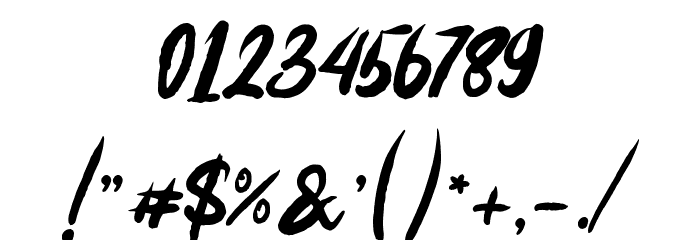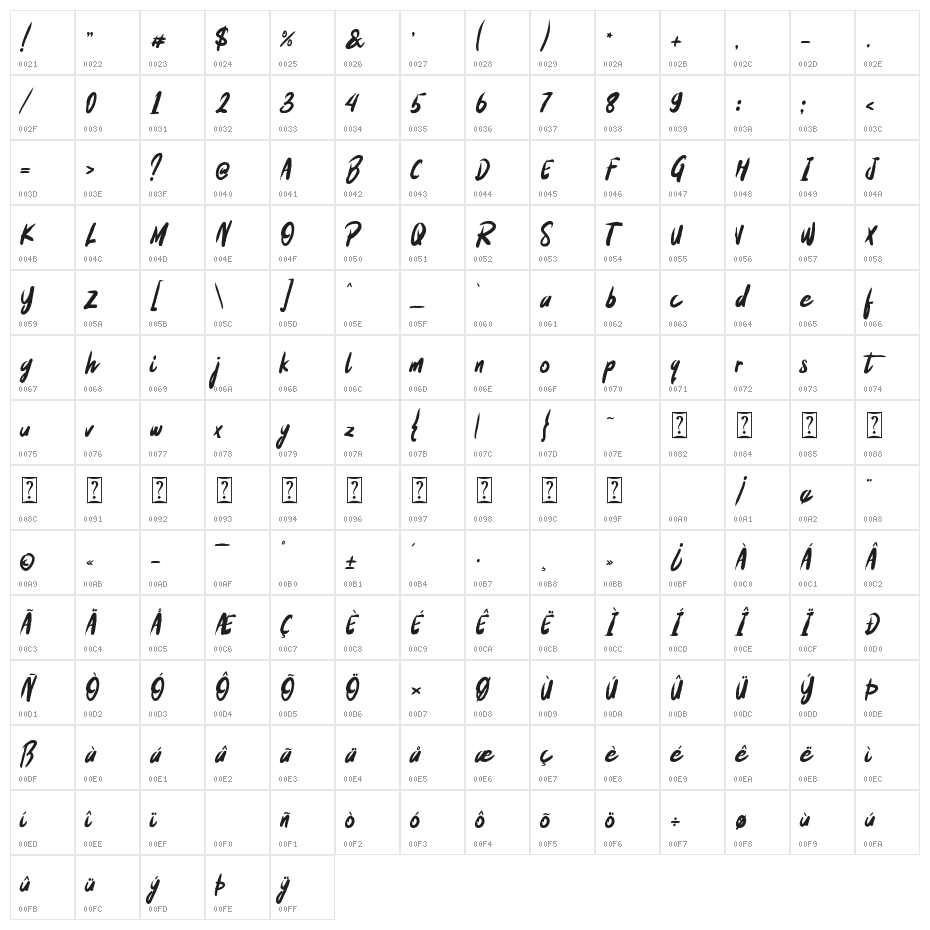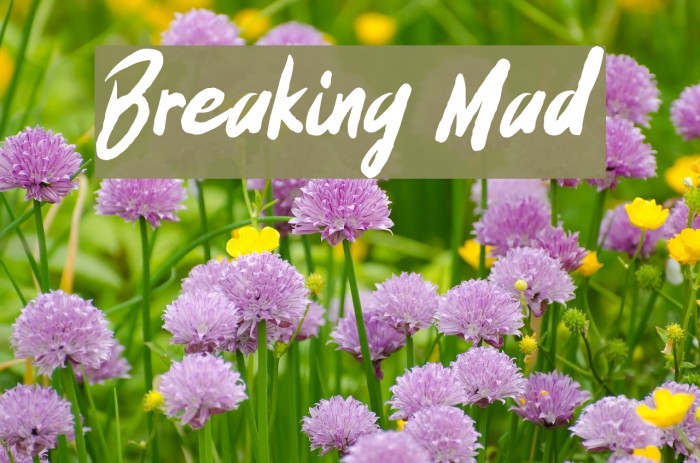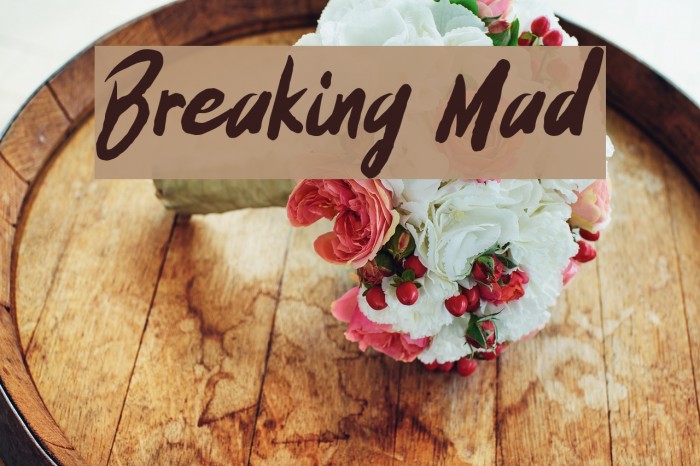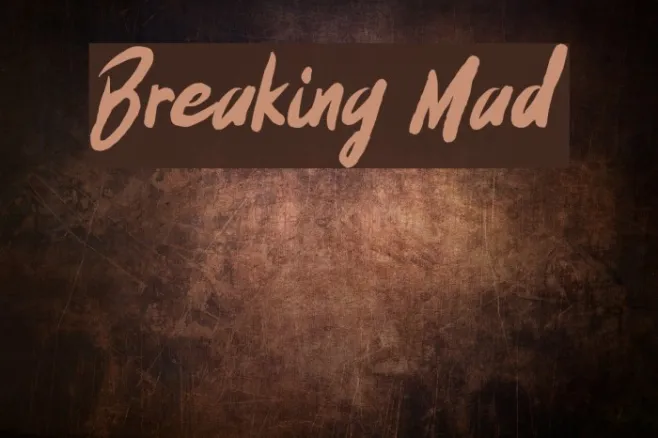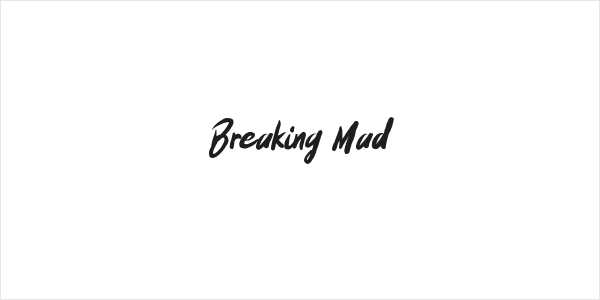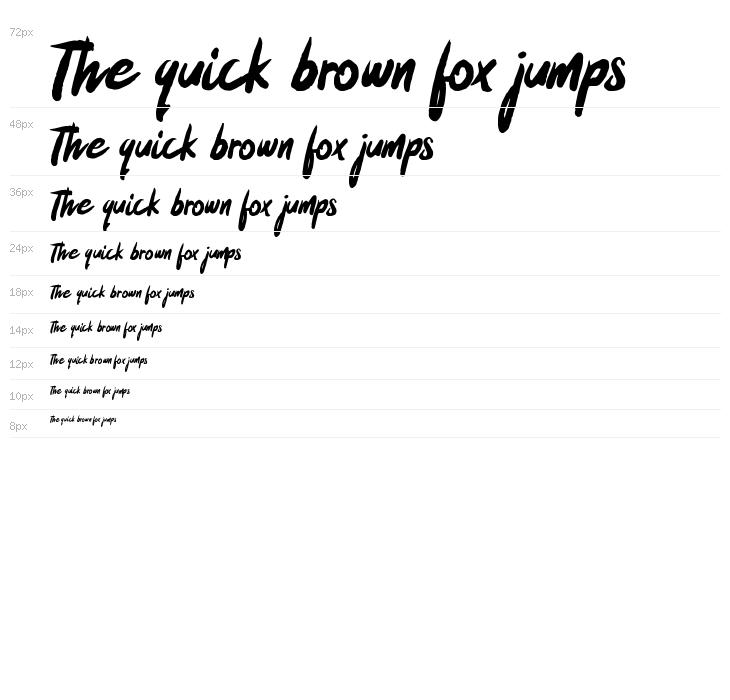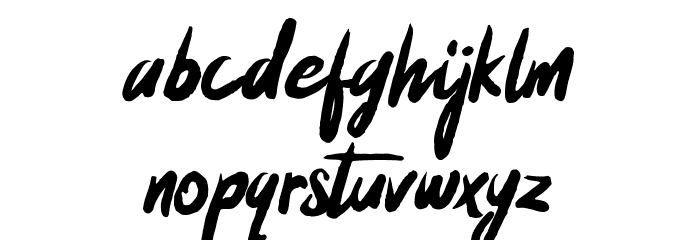
Breaking Mad Font
Breaking Mad Description
This font exudes a bold and energetic handwritten style, characterized by its dynamic brush strokes and organic flow. The uppercase letters are robust and slightly slanted, giving a sense of movement and spontaneity. The lowercase letters maintain a consistent style, with smooth curves and a casual, yet deliberate, appearance. Numbers and special characters follow the same expressive design, ensuring a cohesive look across all elements. The overall impression is one of creativity and flair, making it ideal for projects that require a personal touch.
| Proposed Projects | Ideal for branding, posters, social media graphics, and creative projects that need a personal touch. |